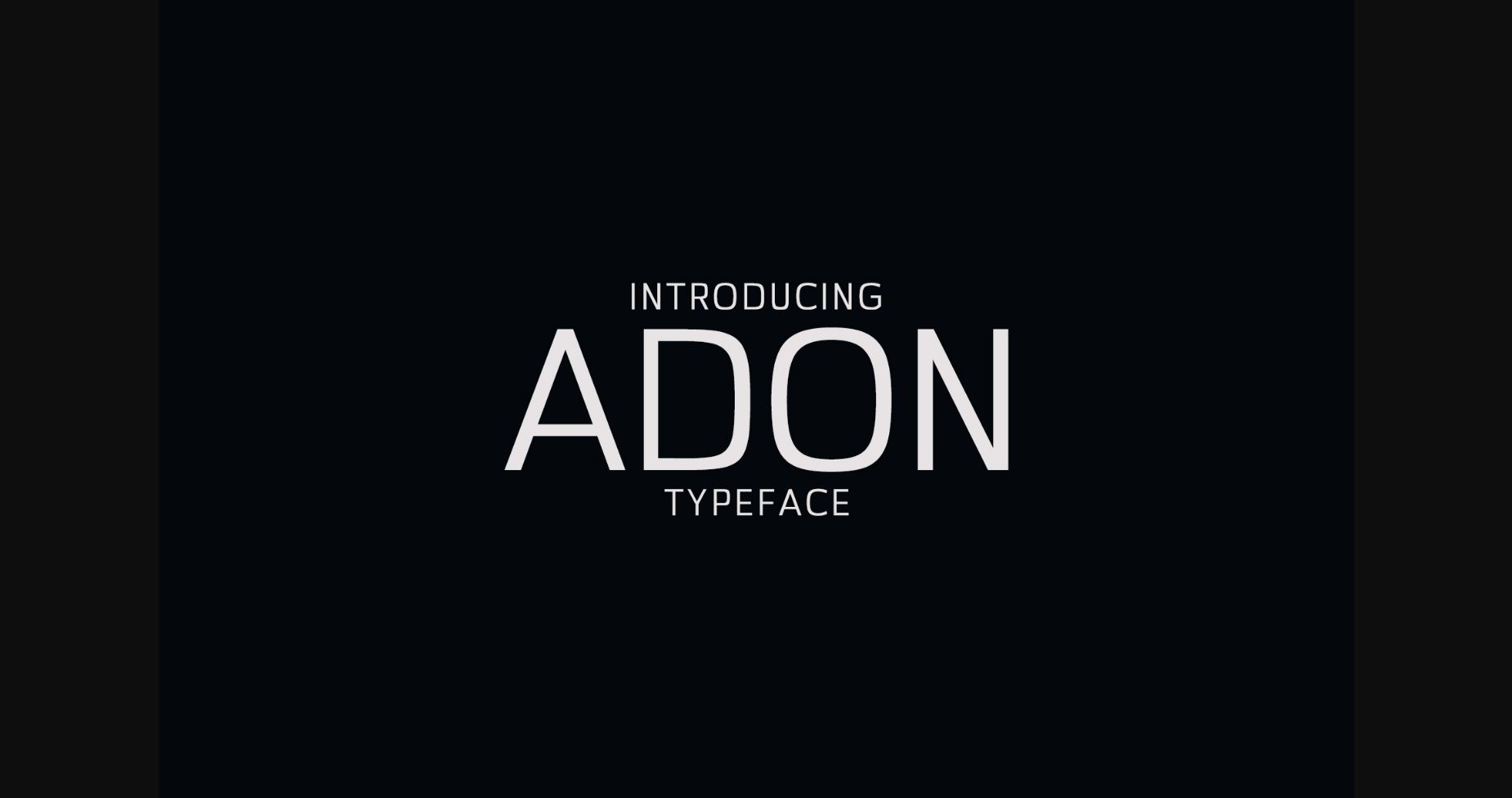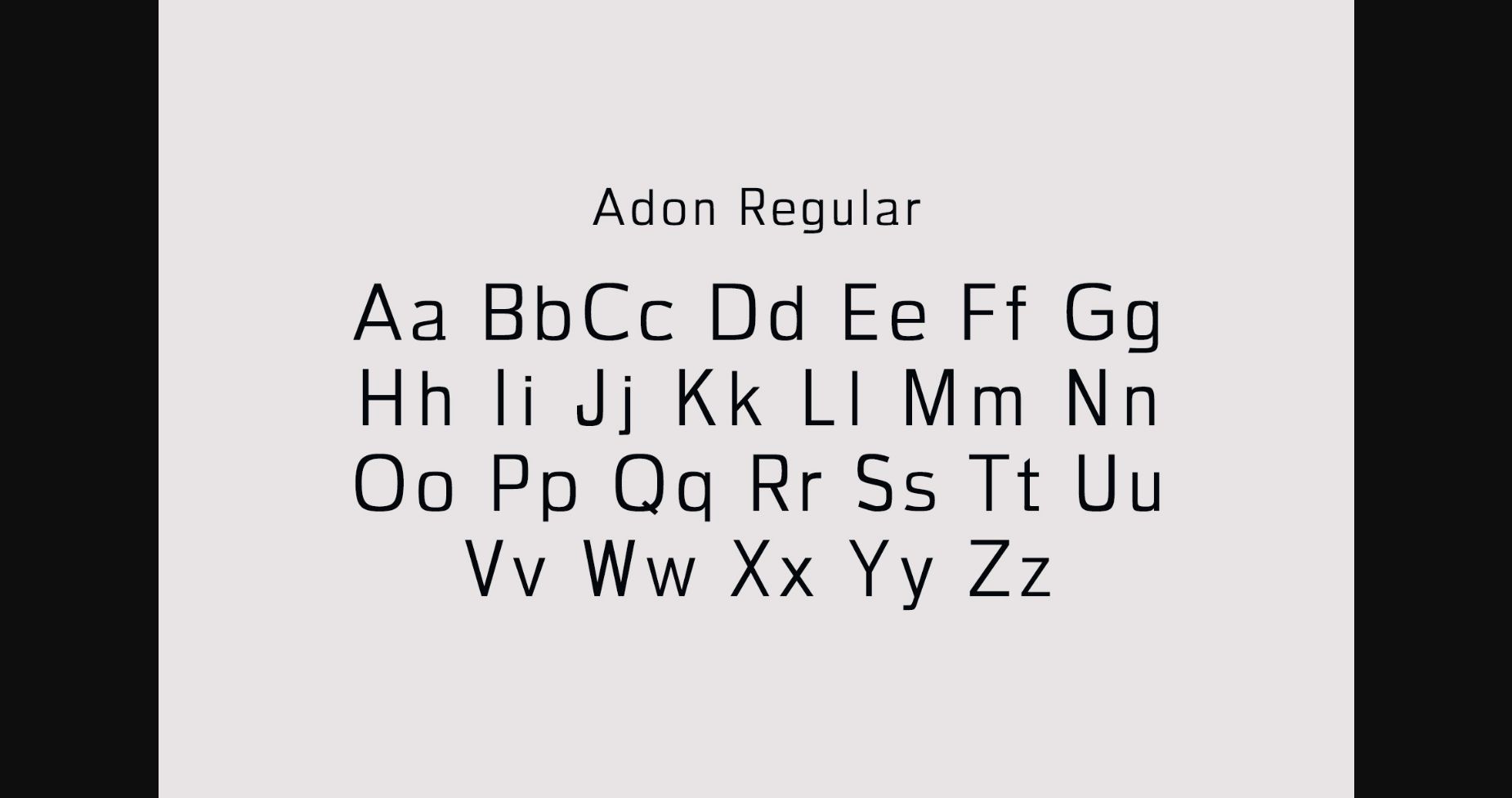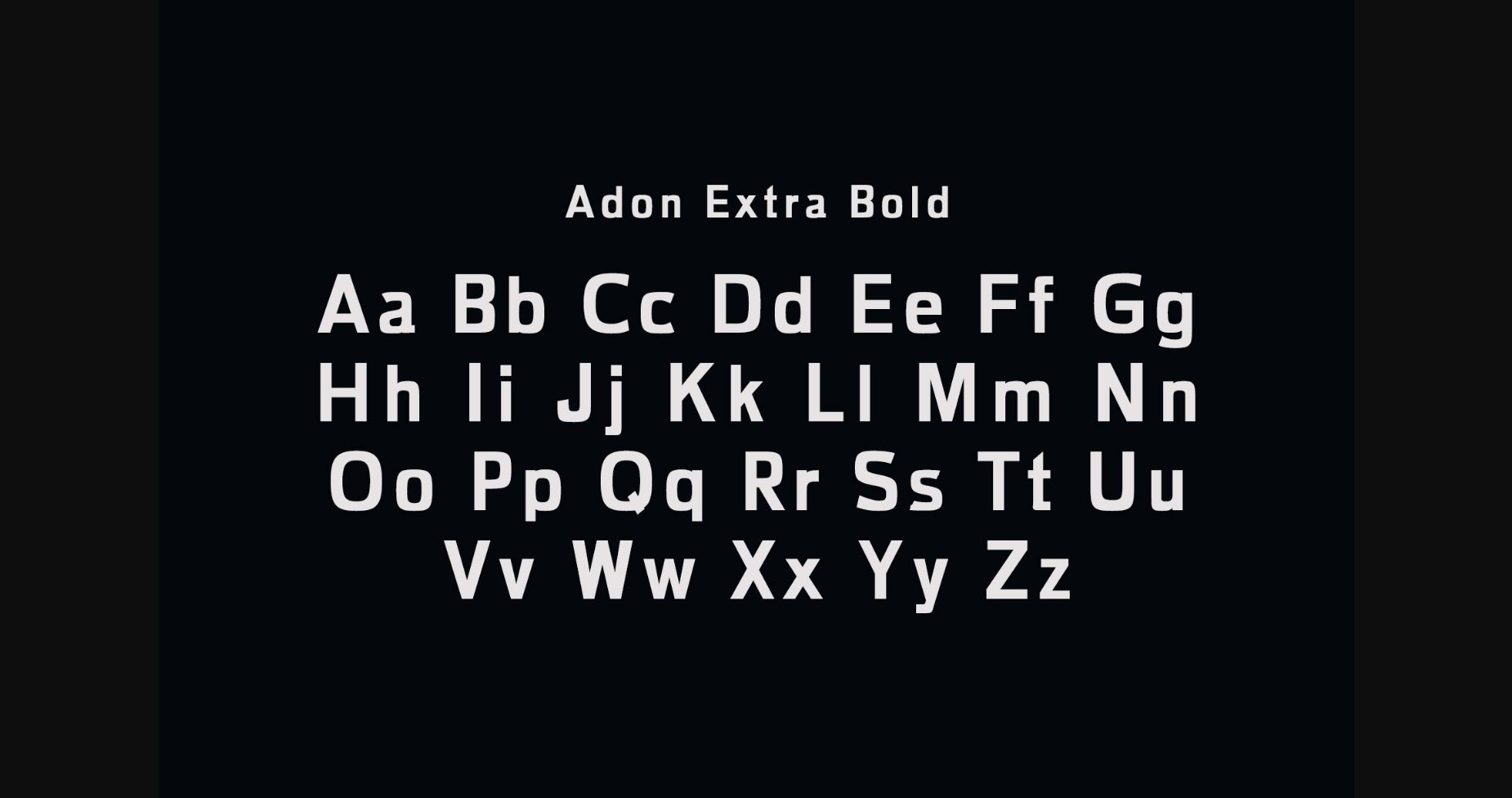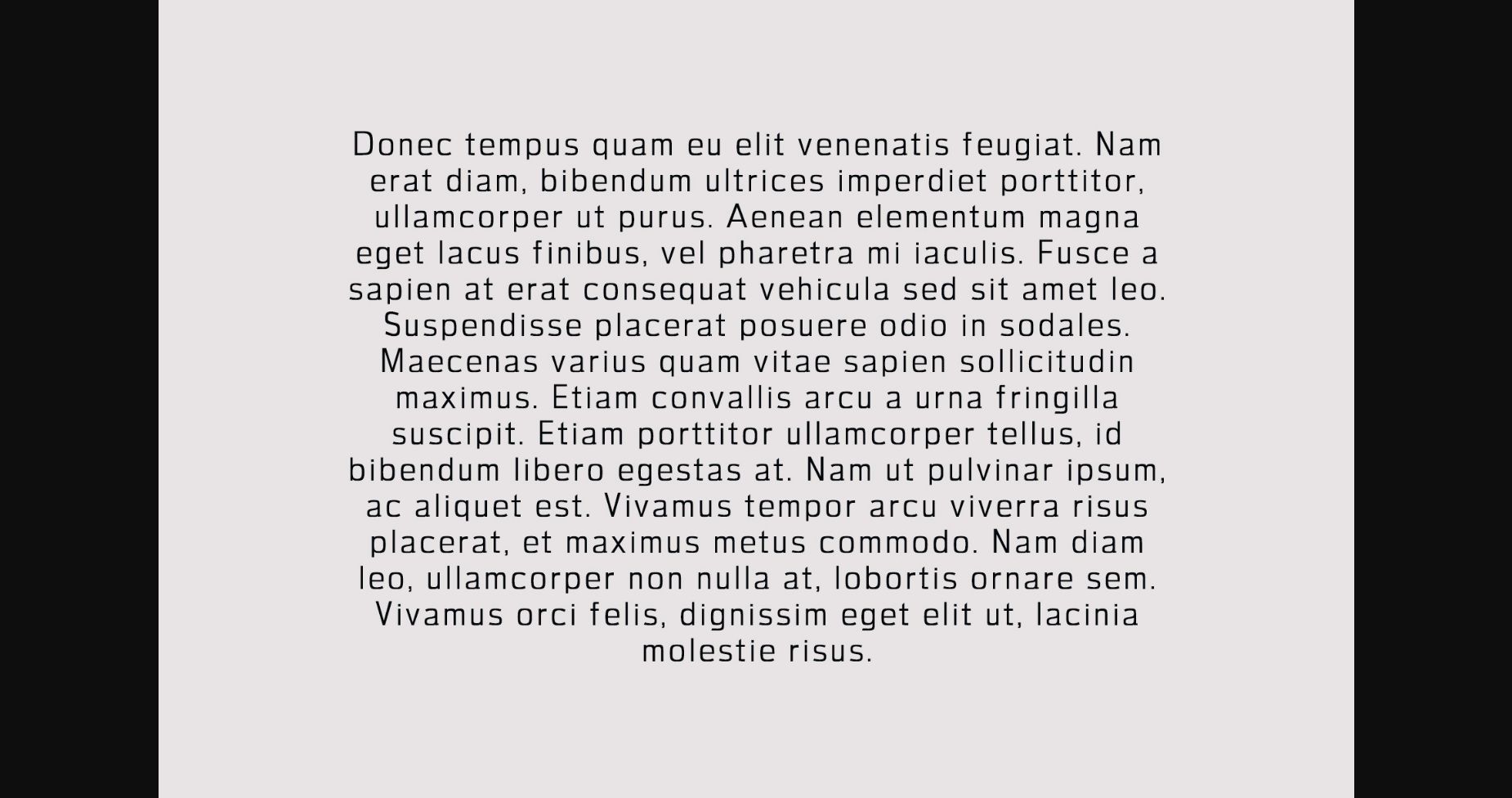
About Adon Font
Adon is an elegant, tall and thin lettered sans serif font. Fall for its distinct style and use it to create gorgeous wedding invitations, beautiful stationary art, eye-catching social media posts, and much more!